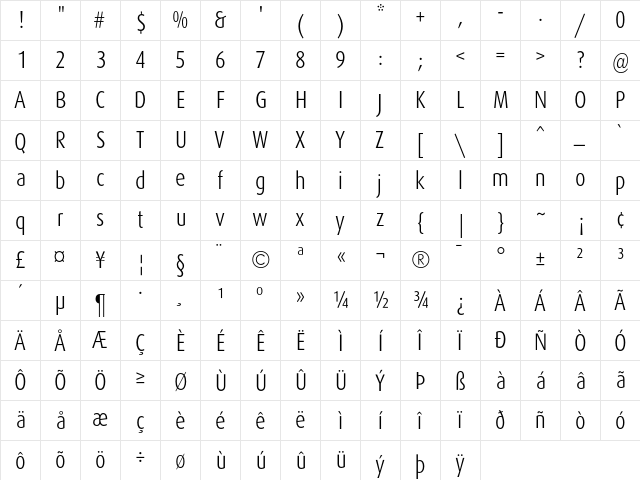
DaxCondensed Light Font Preview
DaxCondensed Light
DaxCondensed Light Font Details
Design Context for DaxCondensed Typeface
DaxCondensed takes a measured approach to typography — its balanced proportions and neutral character make it a reliable workhorse for both digital and print work. Its slender proportions lend an understated elegance to any composition. Its narrow stance lets it pack a punch even in space-constrained designs.